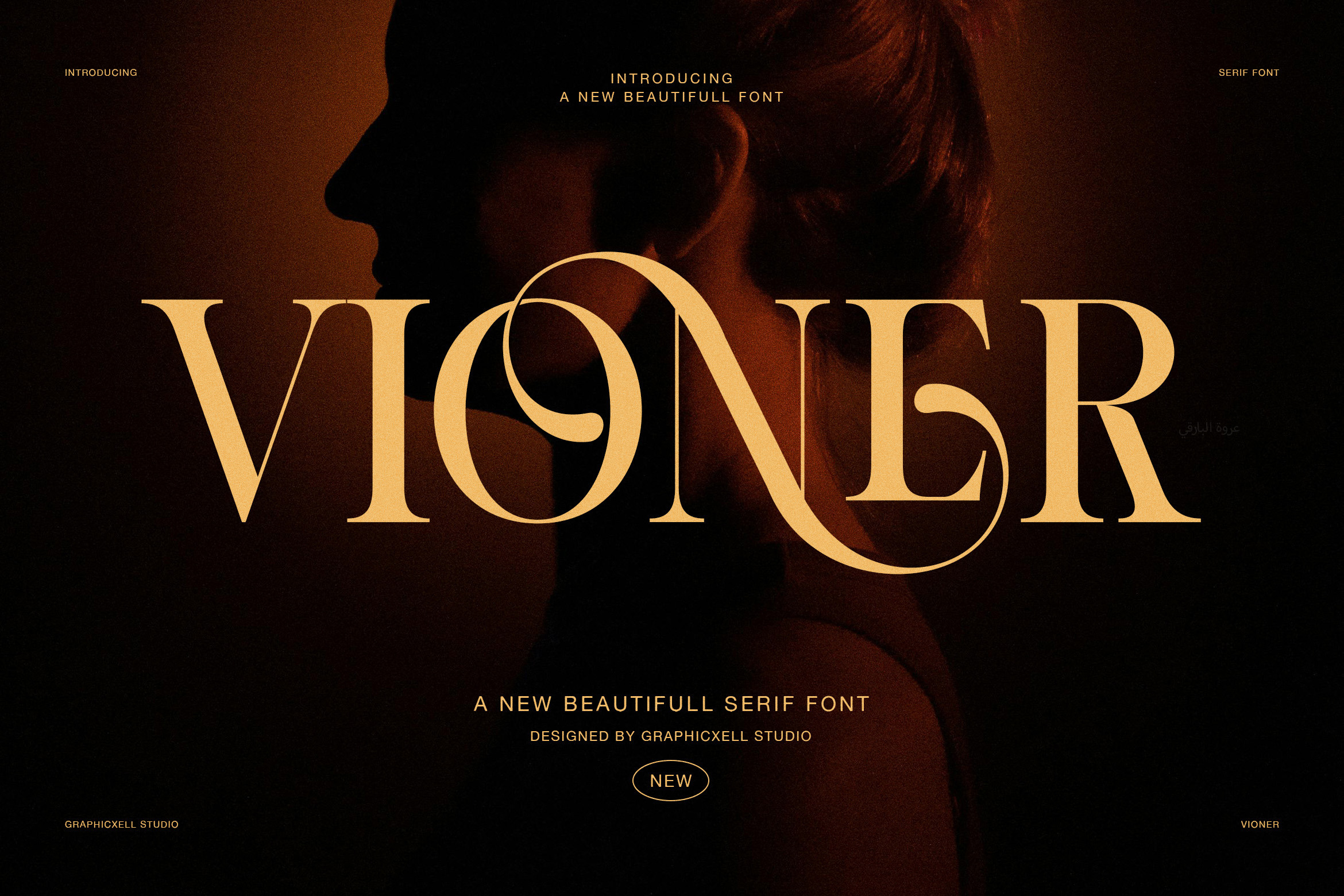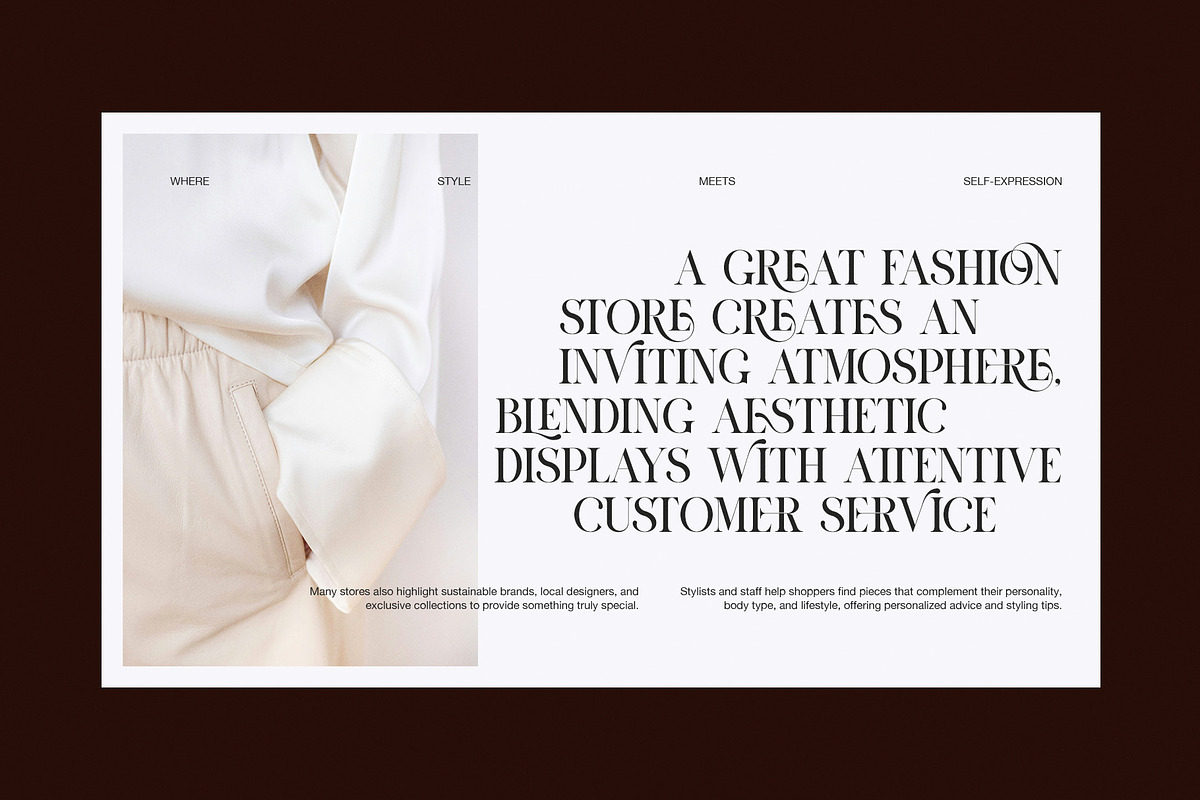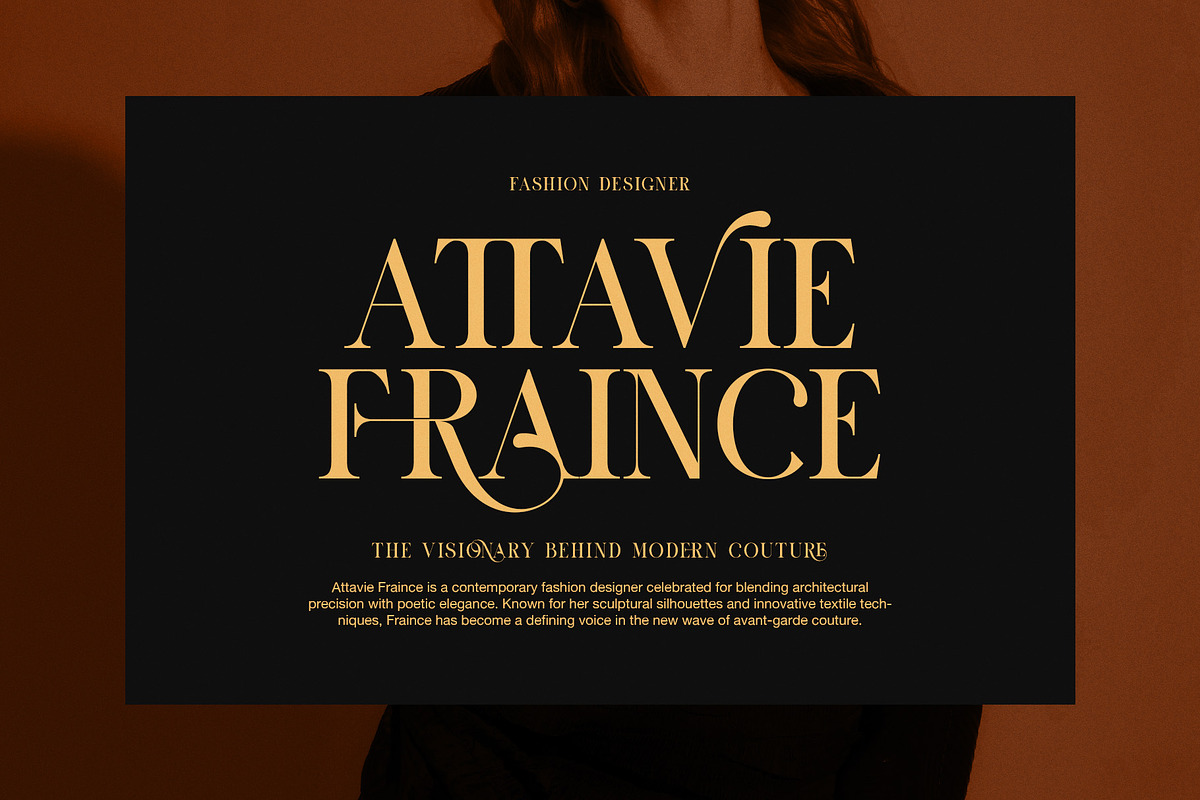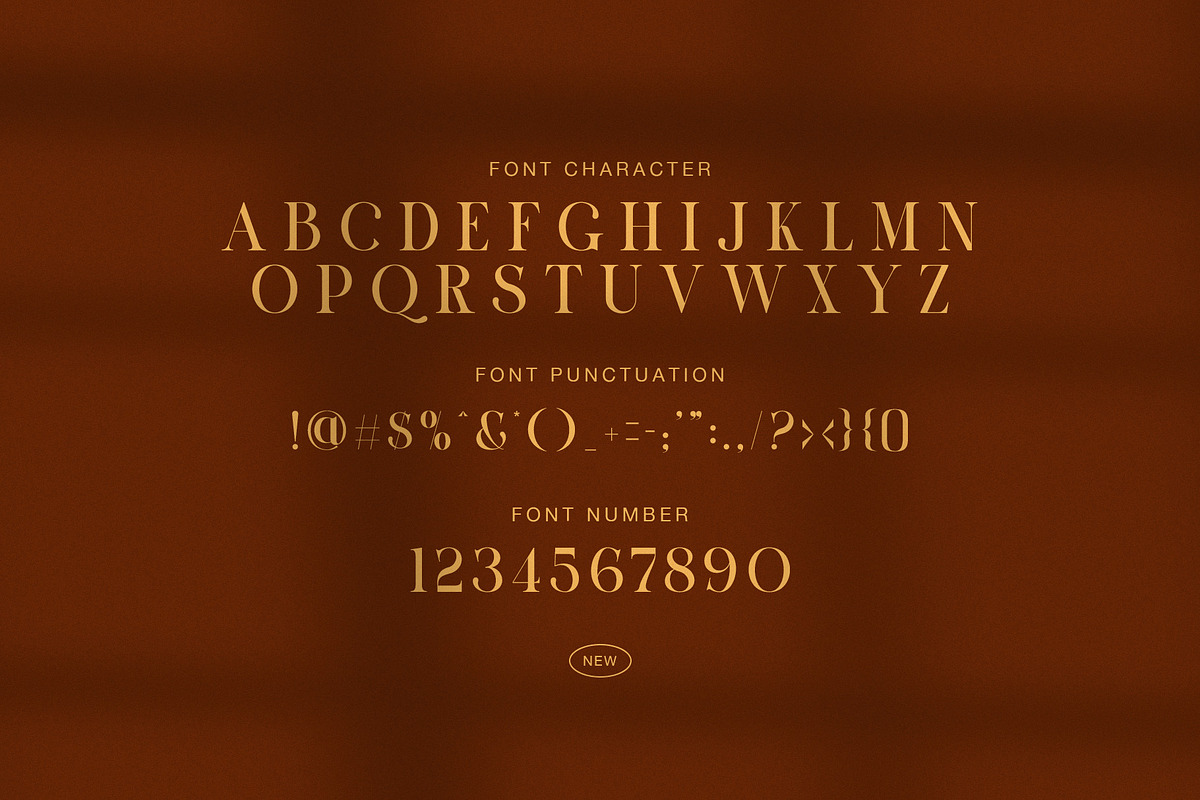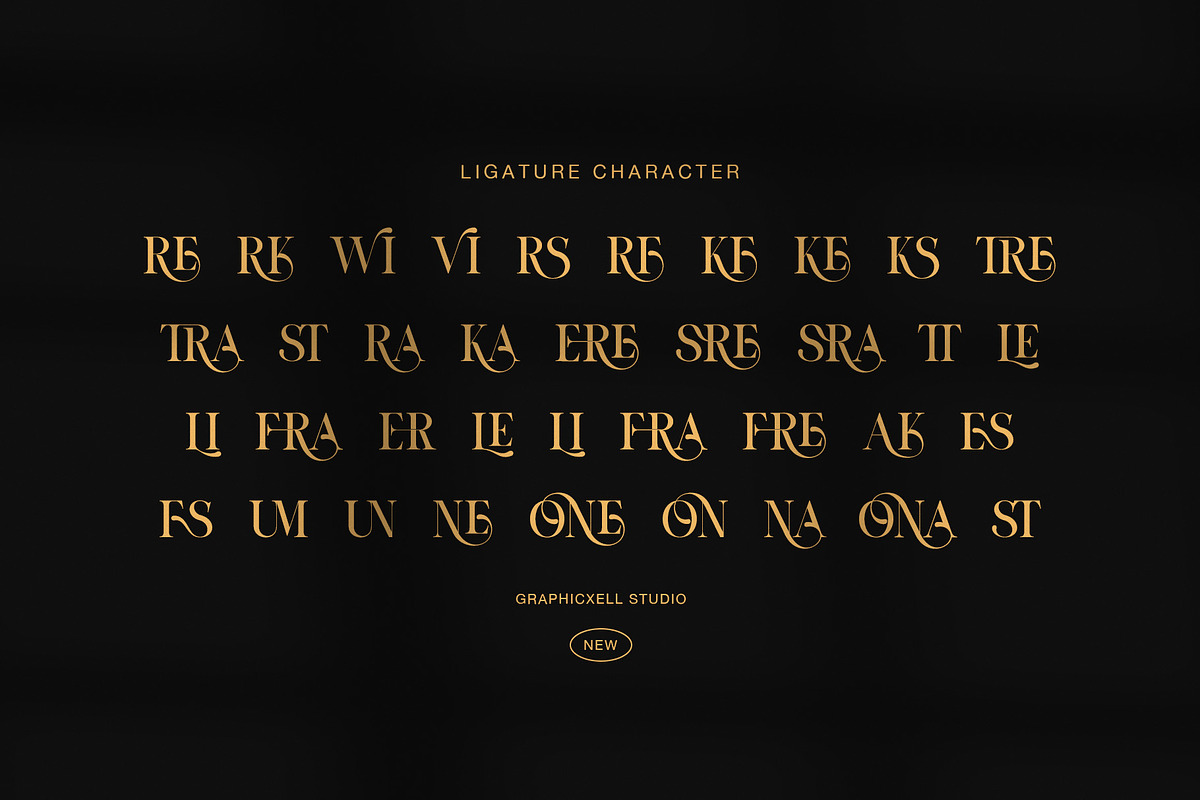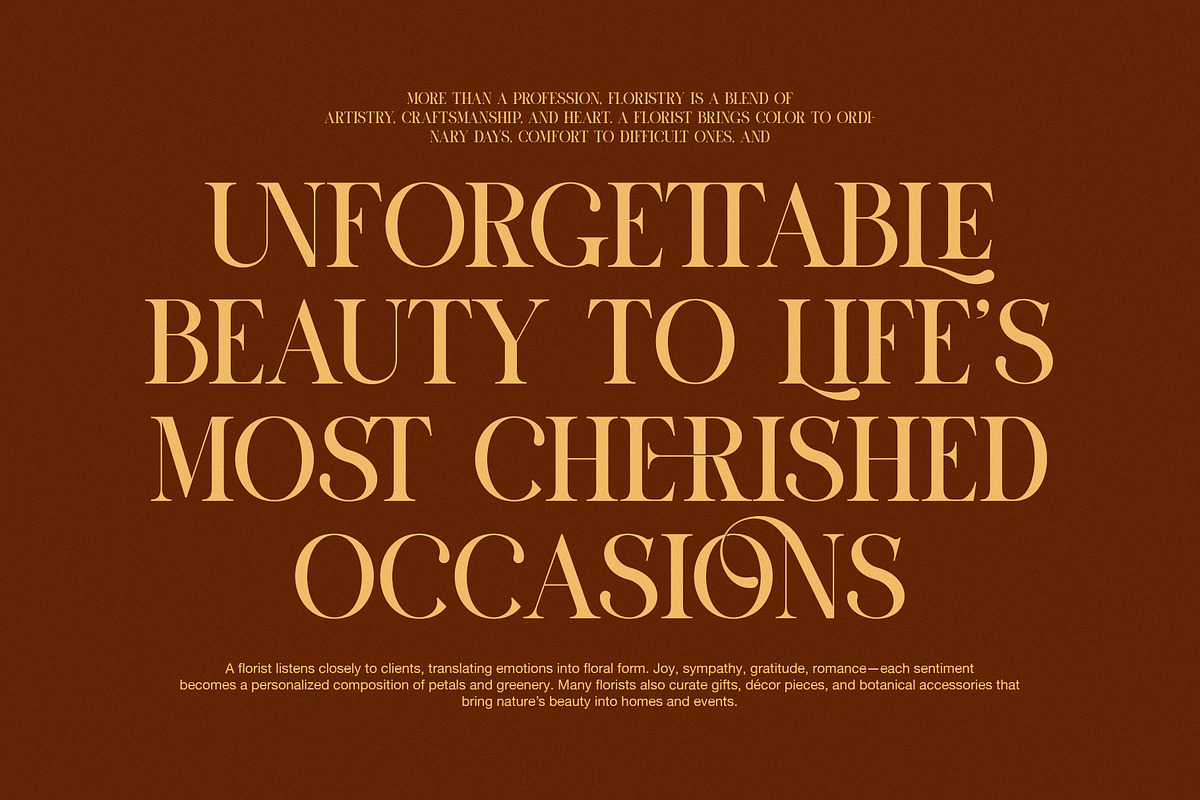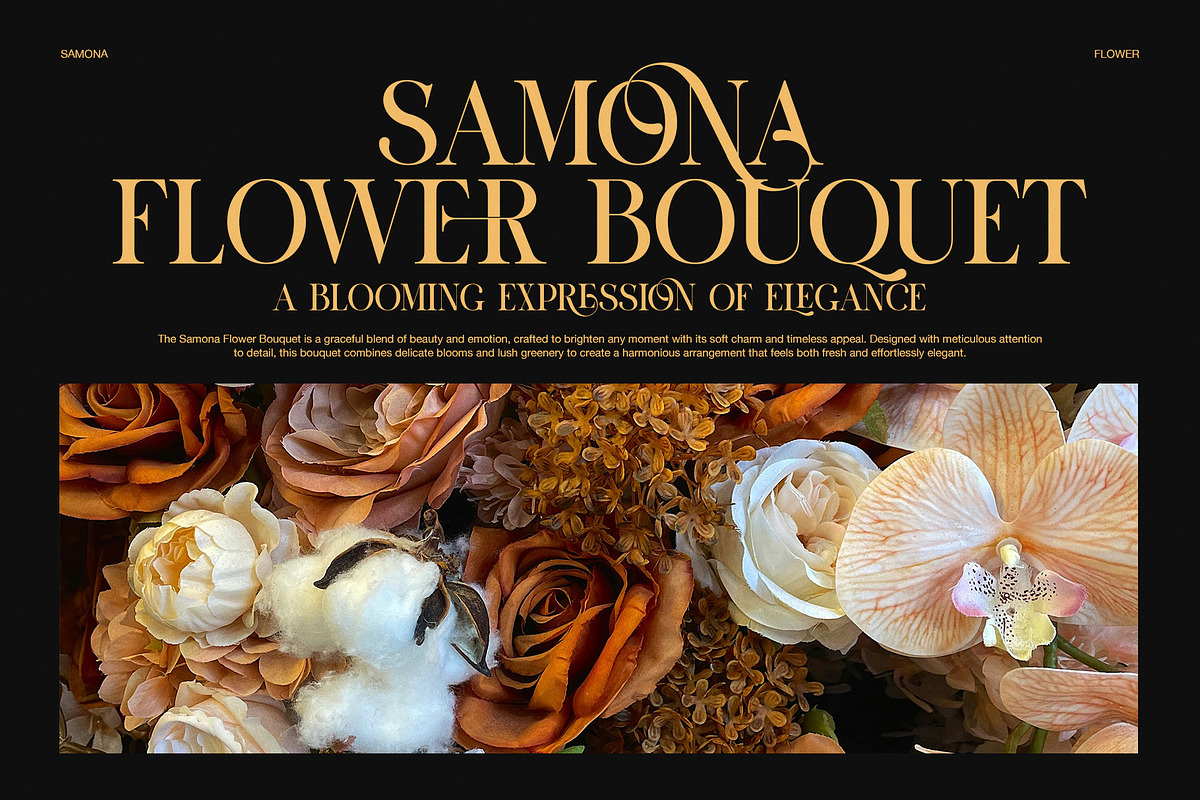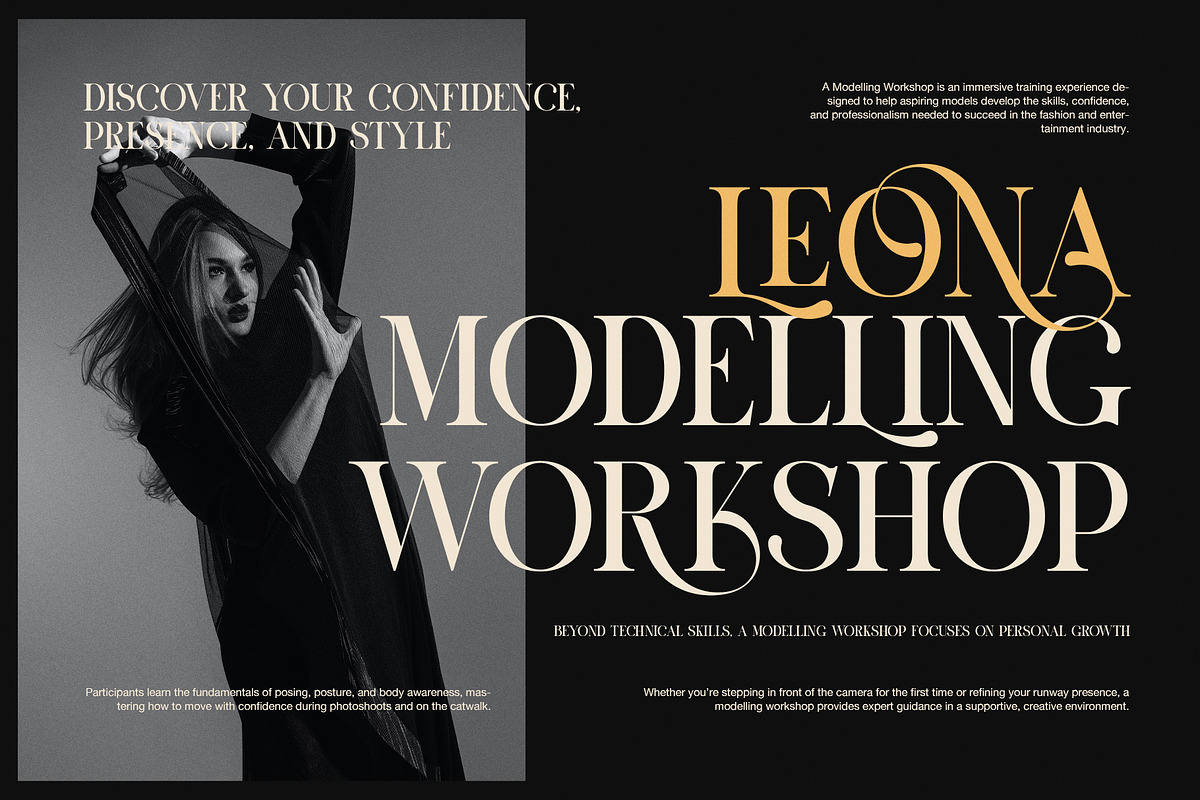
Vioner Elegant Luxury Serif Font
Vioner is an elegant luxury serif font crafted to deliver timeless beauty and refined sophistication. Its high contrast strokes, graceful curves, and distinctive swash details create a striking visual presence that immediately feels premium. At the same time, the letterforms remain clean and balanced, so readability is never compromised.
Unlike traditional rigid serifs, Vioner introduces fluid motion and soft elegance. The sweeping terminals and refined proportions give each character a sense of movement, which adds personality without overwhelming the design. As a result, headlines appear dramatic yet polished, while supporting text stays clear and comfortable to read.
Moreover, Vioner adapts seamlessly to many creative contexts. It works beautifully for fashion branding, luxury packaging, editorial layouts, event invitations, and upscale advertising. In addition, the font performs exceptionally well in large display sizes, making it perfect for logos, magazine titles, and promotional graphics.
Vioner also includes a rich set of ligatures that enhance typographic harmony. These combinations create smooth connections between letters, so words look cohesive and thoughtfully designed. Therefore, designers can achieve a custom, high-end look with minimal effort.
Elegant high-contrast serif design
Refined swashes and graceful curves
Clean and readable letterforms
Complete numbers and punctuation
Stylish ligatures for refined typography
Ideal for luxury branding and editorials
Suitable for print and digital projects
Beyond aesthetics, Vioner conveys confidence and prestige. It suggests quality, craftsmanship, and modern elegance. Consequently, it is especially effective for brands that want to appear sophisticated without feeling distant.
Overall, Vioner is more than a typeface. It is a design statement that elevates every composition it touches. If you want typography that feels luxurious, expressive, and timeless, Vioner is a powerful choice for your creative work.